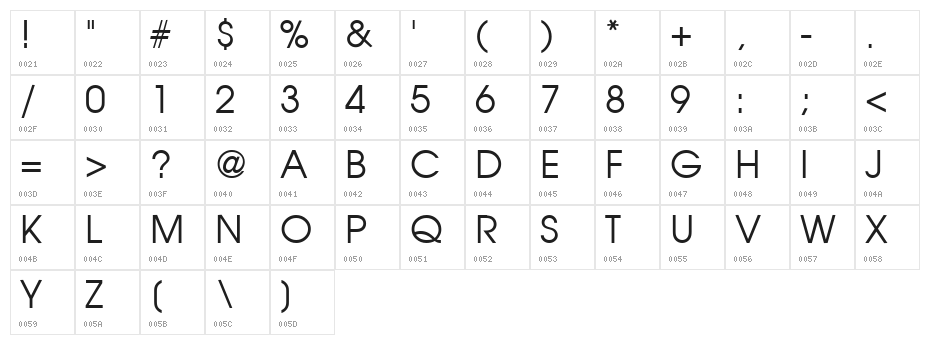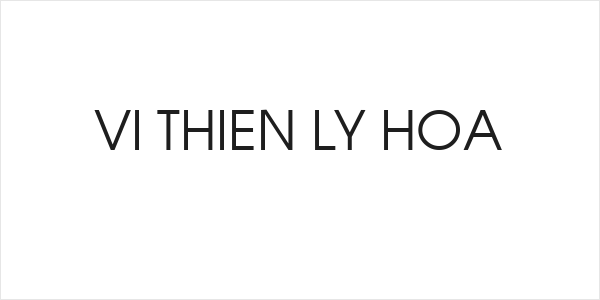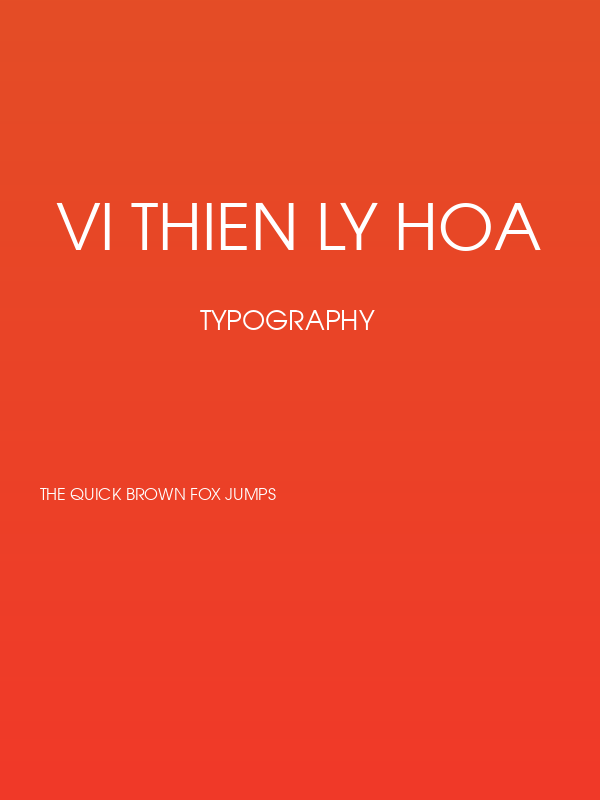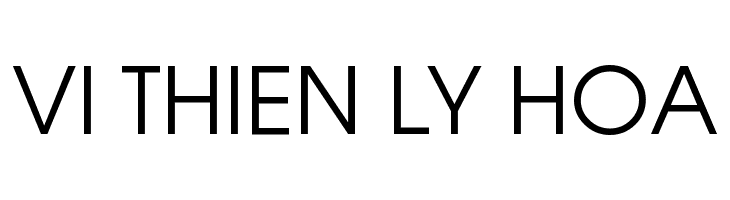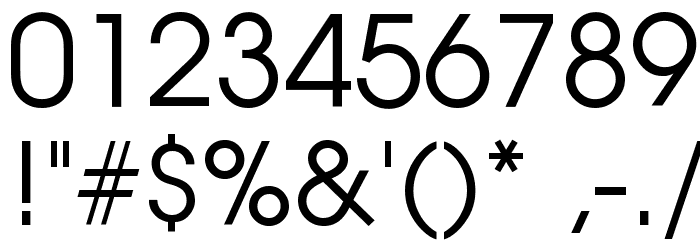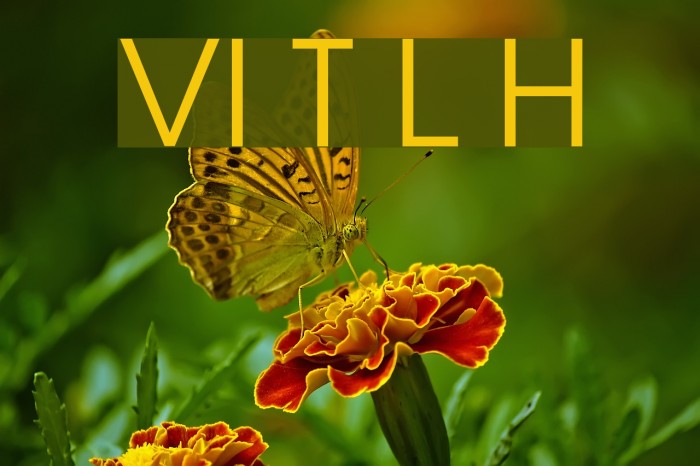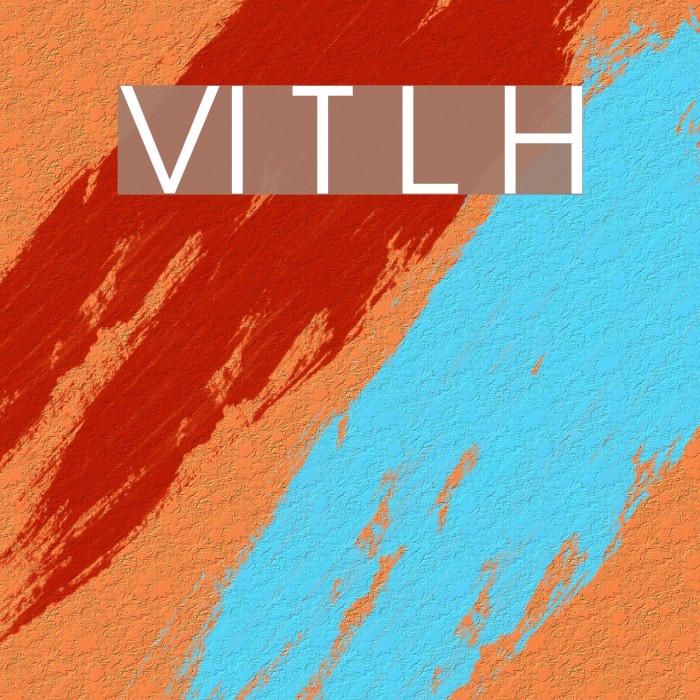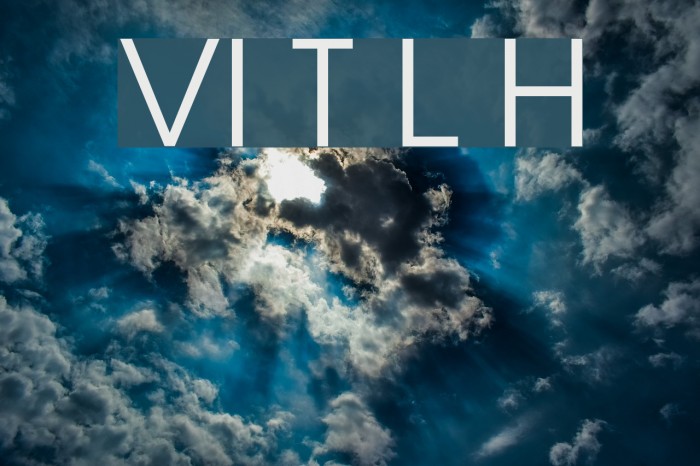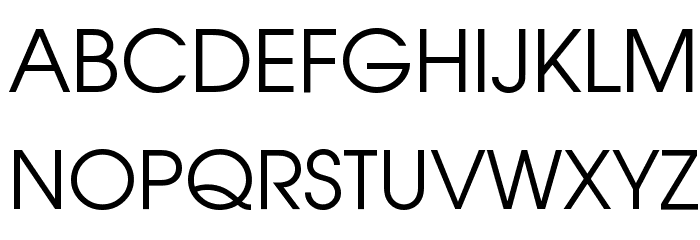
VI Thien Ly Hoa Font
VI Thien Ly Hoa Description
This font features a clean and modern sans-serif design, characterized by its geometric shapes and uniform stroke widths. The uppercase letters are bold and assertive, while the lowercase letters maintain a consistent style that complements the uppercase. The numerals are clear and legible, making them suitable for a variety of applications. Special characters are well-defined, adding versatility to the font. The overall appearance is sleek and professional, making it ideal for contemporary design projects.
| Use Case | Headlines, Body text, Logos |
| Proposed Projects | Ideal for branding, advertising, web design, and editorial layouts. |